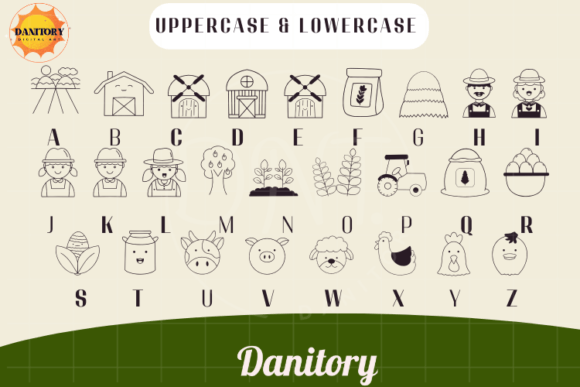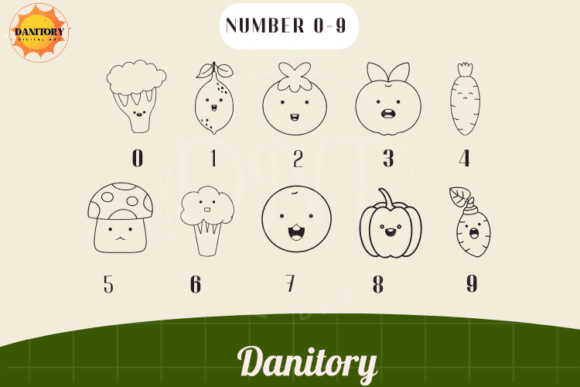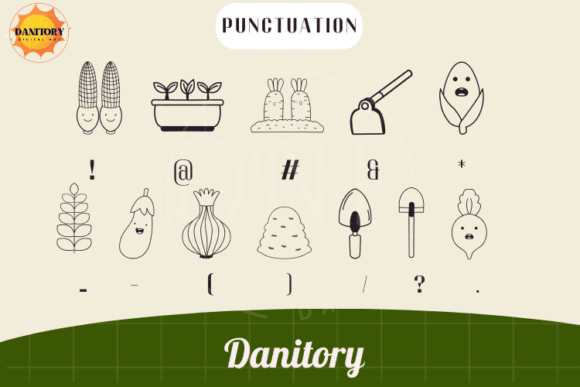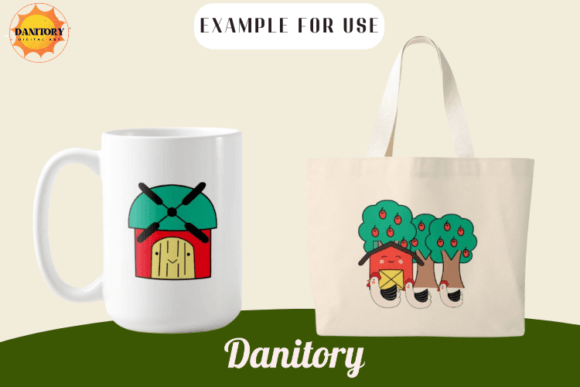
Happy Family Farm Font: A Charming Dingbats Font for Whimsical Designs
Are you looking for a font that can add a touch of playfulness and friendliness to your designs? Look no further than the Happy Family Farm Font! This charming dingbats font is perfect for creating fun and whimsical designs that are sure to delight. Featuring adorable illustrations of animals, plants, and other elements commonly found on a farm, this font is ideal for invitations, packaging, and branding projects that want to convey a playful and friendly atmosphere.
What is Happy Family Farm Font?
Happy Family Farm Font is a unique dingbats font that features a collection of illustrations of farm-themed elements, including animals, plants, and objects. The font is designed to be used in a variety of creative projects, from invitations and greeting cards to packaging and branding materials. Each character in the font is carefully crafted to be both visually appealing and highly legible, making it perfect for use in a range of design applications.
Key Features of Happy Family Farm Font
- Adorable illustrations: The font features a range of adorable illustrations of farm animals, plants, and objects, including cows, pigs, chickens, and more.
- Whimsical design: The font has a playful and whimsical design that’s perfect for creating fun and engaging designs.
- Dingbats font: The font is a dingbats font, which means that each character is a unique illustration, rather than a traditional letter or number.
- Highly legible: Despite its playful design, the font is highly legible and can be used in a range of design applications.
Uses for Happy Family Farm Font
Happy Family Farm Font is a versatile font that can be used in a range of creative projects, including:
- Invitations: Use the font to create fun and playful invitations for parties, events, and other celebrations.
- Packaging: Add a touch of whimsy to your packaging designs with this charming font.
- Branding: Use the font to create a playful and friendly brand identity for your business or product.
- Greeting cards: Create adorable greeting cards for special occasions, such as birthdays, holidays, and more.
- Stationery: Use the font to create fun and playful stationery, such as notebooks, stickers, and more.
Tips for Using Happy Family Farm Font
Here are a few tips for getting the most out of Happy Family Farm Font:
- Use it sparingly: While the font is playful and fun, it can be overwhelming if used too much. Use it sparingly to add a touch of whimsy to your designs.
- Pair it with other fonts: Pair the font with other fonts to create a unique and visually appealing design.
- Experiment with colors: The font looks great in a range of colors, so don’t be afraid to experiment and find the perfect color scheme for your design.
Happy Family Farm Font is a charming dingbats font that’s perfect for creating fun and whimsical designs. With its adorable illustrations of farm animals, plants, and objects, this font is ideal for invitations, packaging, and branding projects that want to convey a playful and friendly atmosphere. Whether you’re a designer, crafter, or DIY enthusiast, this font is sure to delight. So why not give it a try and see what amazing designs you can create?